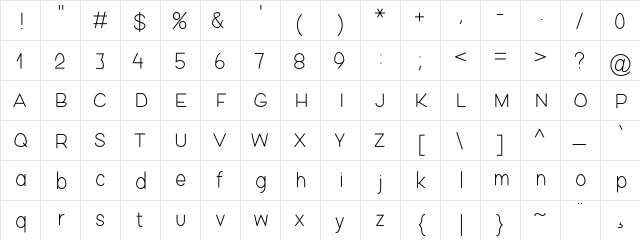
FISHSTICKS01 normal
Design Context for FISHSTICKS01 Typeface
FISHSTICKS01 takes a measured approach to typography — its balanced proportions and neutral character make it a reliable workhorse for both digital and print work.